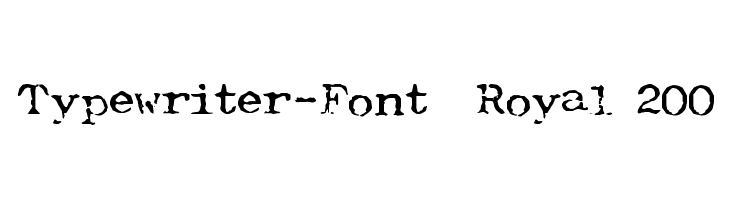
A vintage, typewriter-inspired font with a bold, distressed look.
A classic monospaced typewriter font with bold, clear characters and slight serifs.
A vintage, textured typewriter-style font with monospaced characters and a bold, authentic look.
A vintage, monospaced slab serif font with a typewriter style and distressed texture.
A vintage typewriter-style font with a slightly distressed look.
A distressed, vintage typewriter-style font with a bold, grunge aesthetic.
A rustic, vintage typewriter-style font with a distressed, hand-crafted appearance.
A vintage, monospaced font with a distressed, typewriter-style appearance.